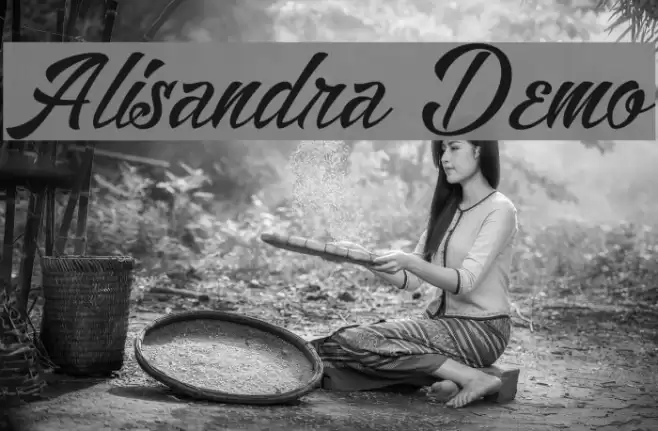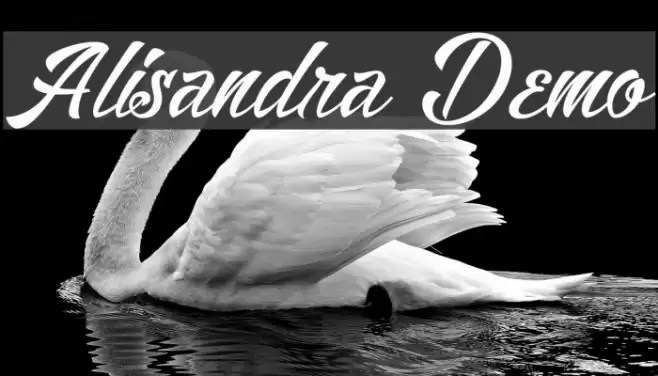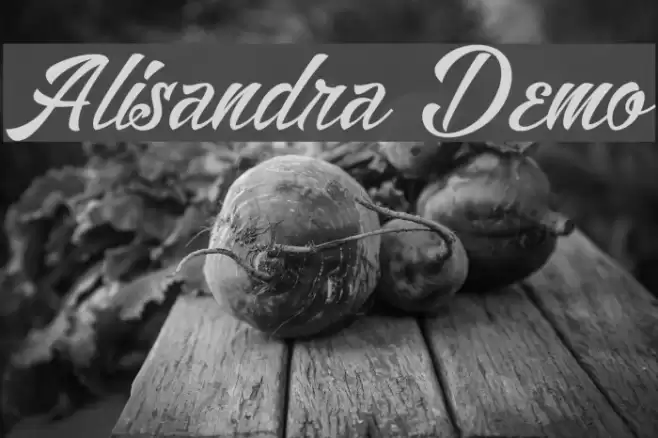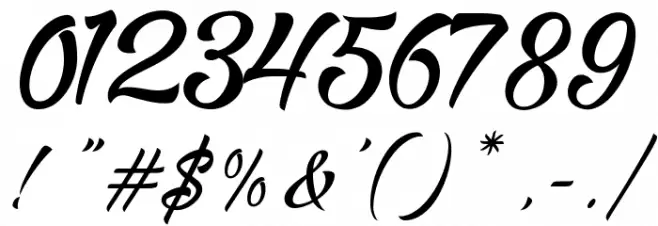
Alisandra Demo Font
Alisandra Demo Description
This elegant script font features flowing, cursive letterforms with a sense of fluidity and grace. The uppercase letters are bold and striking, with sweeping curves and flourishes that add a touch of sophistication. The lowercase letters maintain a consistent style, offering a harmonious blend of thick and thin strokes that enhance readability while maintaining an artistic flair. The numerals are equally stylish, with a consistent weight and design that complements the alphabet. Special characters are thoughtfully designed, ensuring they integrate seamlessly with the overall aesthetic. This font exudes a sense of elegance and is perfect for projects that require a touch of class and refinement.
An elegant script font with flowing, cursive letterforms and sophisticated flourishes from Uncategorized fonts.
- Proposed Projects: Ideal for wedding invitations, luxury branding, elegant logos, and high-end product packaging.
- Overall Style: Elegant, Sophisticated
- Use Case: Logos, Invitations, Branding